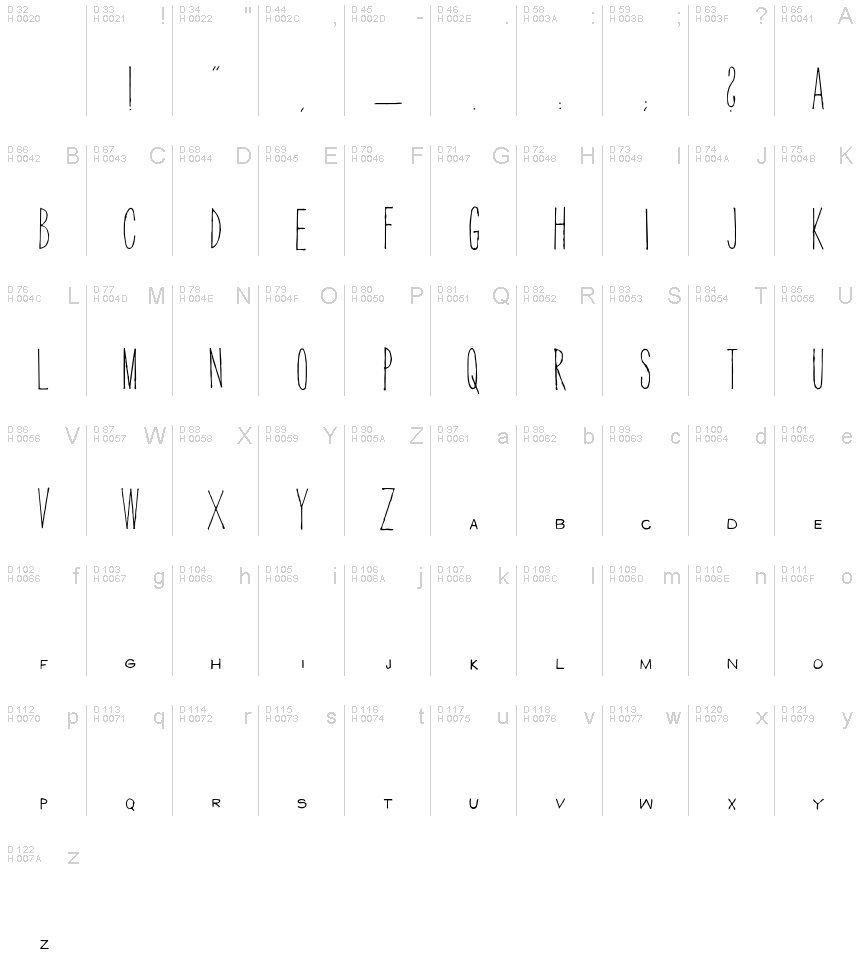
Men In Black Credits
Men in Black Credits exudes a captivating, brush-like essence. Its light, condensed strokes convey a sense of dynamism and sophistication, making it well-suited for cinematic titles, branding, and editorial design. The font's distinctive, expressive forms lend an air of mystery and intrigue, effortlessly capturing the essence of the Men in Black franchise. Its versatility across various design applications, from posters to packaging, underscores its potential to elevate any project with a touch of stylized flair.
This font's unique character and versatility make it a compelling choice for designers seeking to infuse their work with a touch of cinematic allure and visual distinction.
by Jens R. Ziehn